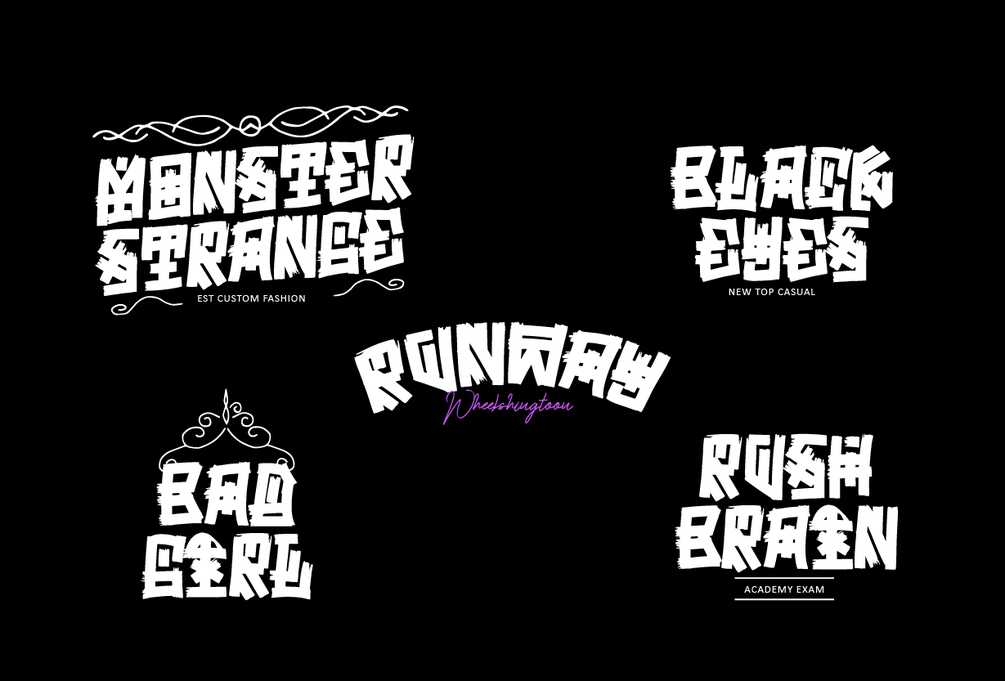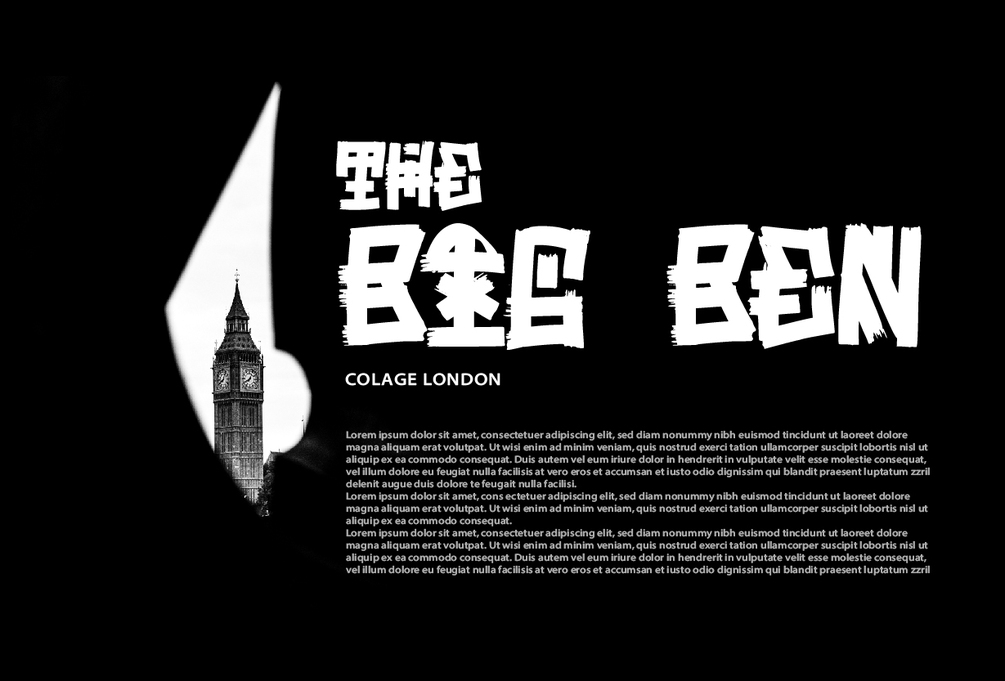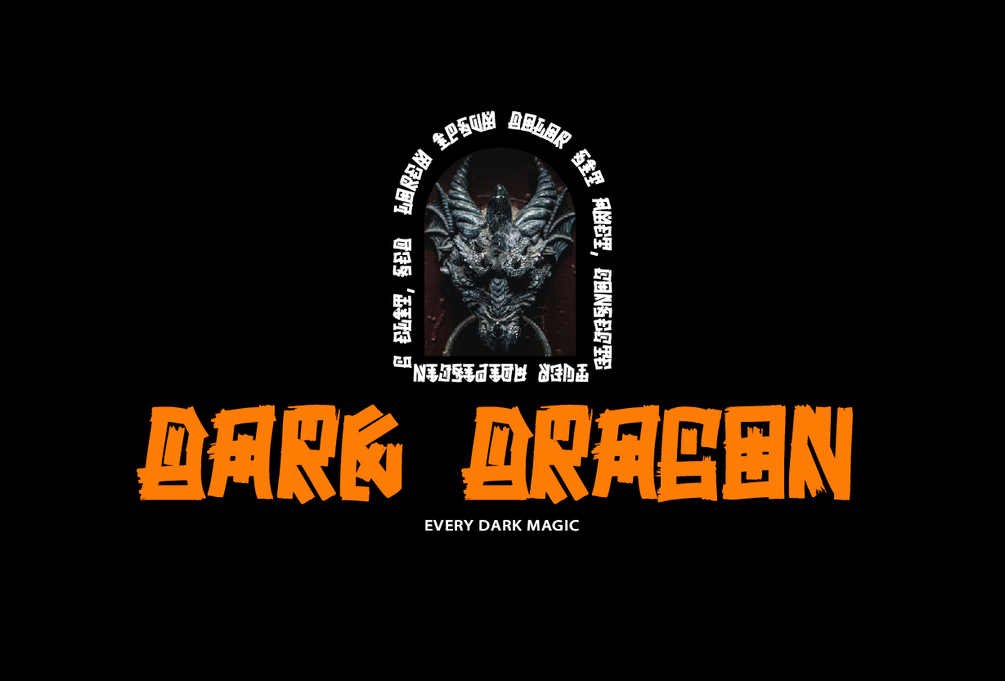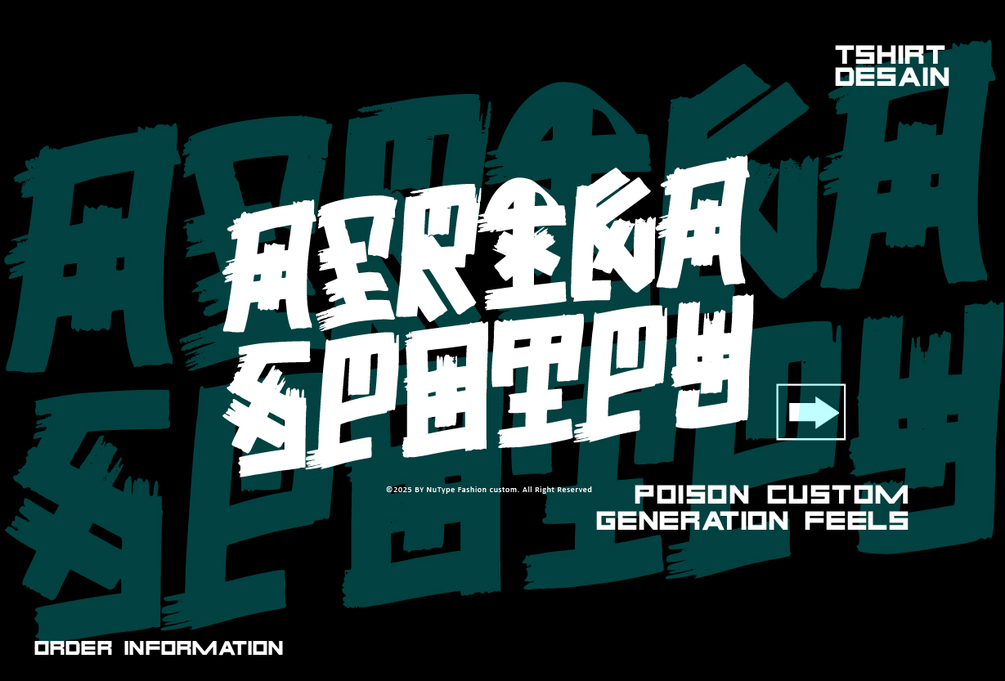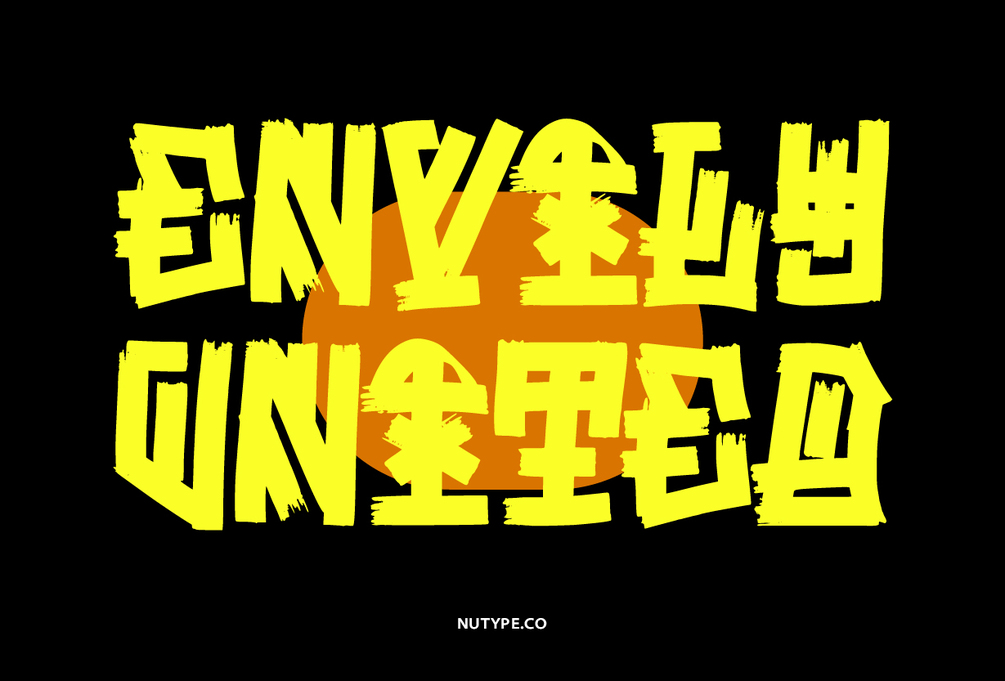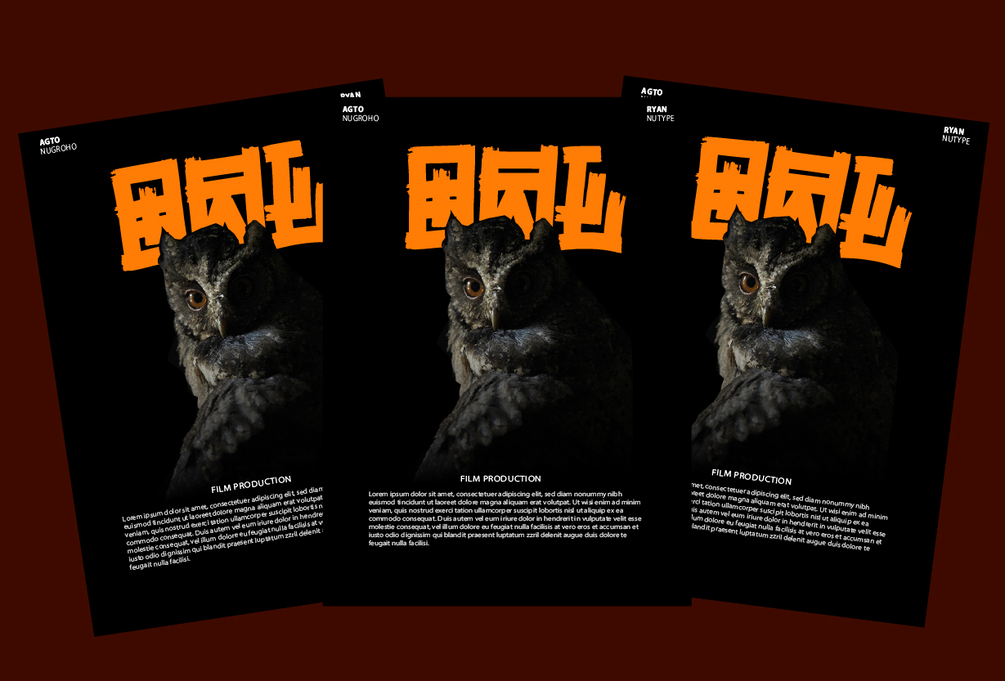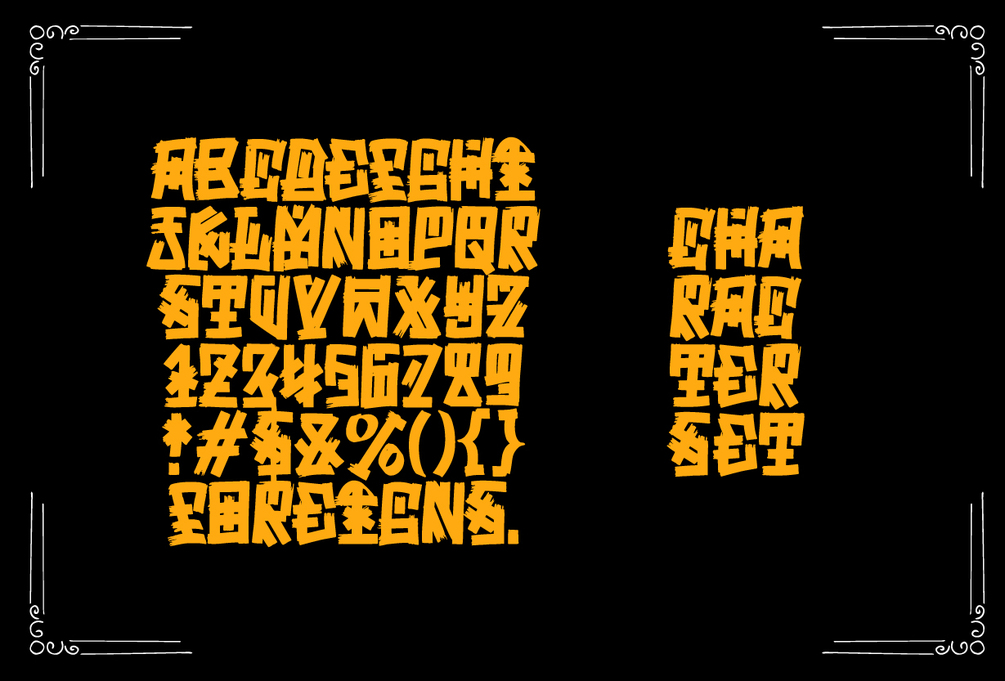
Athena - Custom Experimental font
Athena is a unique handcrafted display typeface inspired by the bold and geometric rhythm of Korean lettering. Each character is designed with a personal touch, making it feel organic and artistic while still keeping a strong modern vibe.
This typeface is perfect for designers who want to add a distinctive and cultural flavor to their projects. With its experimental letterforms, Athena brings out creativity and originality in every design.
Features:
- Uppercase
- Numbers & Punctuation
- Handcrafted Style with Unique Letterforms
Best For:
- Branding & Logo Design
- Posters & Album Covers
- Editorial Design
- Social Media Graphics
- Creative Typography Projects